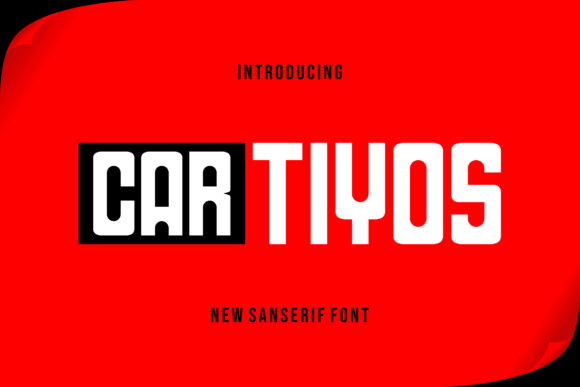
Introducing Cartiyos Font: Elevate Your Designs with a Cool and Modern Display Font
In the world of typography, fonts play a crucial role in conveying messages, expressing emotions, and creating visual identities. With the vast array of fonts available, designers often find themselves searching for that perfect typeface that can elevate their creations and make them stand out. If you’re on the hunt for a cool and modern display font that can add a touch of sophistication to your designs, look no further than Cartiyos Font.
What is Cartiyos Font?
Cartiyos Font is a contemporary display font designed to make a statement. Its sleek lines, elegant curves, and unique characteristics make it an excellent choice for a wide range of design projects, from branding and advertising to packaging and digital media. Whether you’re looking to create a bold and eye-catching headline or a sophisticated and refined text, Cartiyos Font has the versatility to adapt to any design style.
One of the standout features of Cartiyos Font is its exceptional legibility, even at large sizes. This makes it an ideal choice for designs that require a clear and concise message, such as billboards, posters, and digital displays. Additionally, the font’s modern aesthetic ensures that your designs will look fresh and current, setting you apart from the competition.
The Benefits of Using Cartiyos Font
So, what makes Cartiyos Font an incredible asset to your font library? Here are just a few benefits of using this versatile typeface:
- Universal Appeal: Cartiyos Font is a chameleon-like typeface that can adapt to any design style or topic. Whether you’re working on a project for a fashion brand, a tech startup, or a non-profit organization, this font will help you create a visually stunning design that resonates with your audience.
- Elegance and Sophistication: Cartiyos Font exudes elegance and sophistication, making it perfect for designs that require a touch of refinement. From luxury brands to high-end products, this font will help you create a design that feels premium and high-quality.
- Versatility: Cartiyos Font is a highly versatile typeface that can be used for a wide range of design projects, from display headlines to body text. Its flexibility makes it an excellent addition to any font library.
- Legibility: As mentioned earlier, Cartiyos Font is exceptionally legible, even at large sizes. This makes it an excellent choice for designs that require a clear and concise message.
How to Use Cartiyos Font in Your Designs
Now that we’ve covered the benefits of using Cartiyos Font, let’s explore some practical ways to incorporate it into your designs:
- Branding and Logo Design: Use Cartiyos Font to create a bold and memorable logo that sets your brand apart. Its modern aesthetic and elegant curves make it an excellent choice for brands that want to convey sophistication and style.
- Advertising and Marketing: Cartiyos Font is perfect for creating eye-catching headlines and attention-grabbing copy. Use it to create ads that stand out and leave a lasting impression on your audience.
- Packaging Design: Add a touch of elegance to your packaging designs with Cartiyos Font. Its versatility makes it suitable for a wide range of products, from luxury cosmetics to high-end electronics.
- Digital Media: Use Cartiyos Font to create stunning digital content, such as social media graphics, blog posts, and website headers. Its legibility and modern aesthetic make it an excellent choice for digital media.
Tips for Getting the Most Out of Cartiyos Font
To get the most out of Cartiyos Font, here are some expert tips to keep in mind:
- Experiment with Font Sizes: Cartiyos Font looks great at a wide range of font sizes, from large display headlines to smaller body text. Experiment with different font sizes to find the perfect balance for your design.
- Play with Font Colors: Cartiyos Font comes in a range of font colors, from bold and bright to subtle and muted. Experiment with different font colors to find the perfect match for your brand or design.
- Pair it with Other Fonts: Cartiyos Font pairs well with a wide range of fonts, from sans-serif to serif. Experiment with different font combinations to create a unique and visually stunning design.